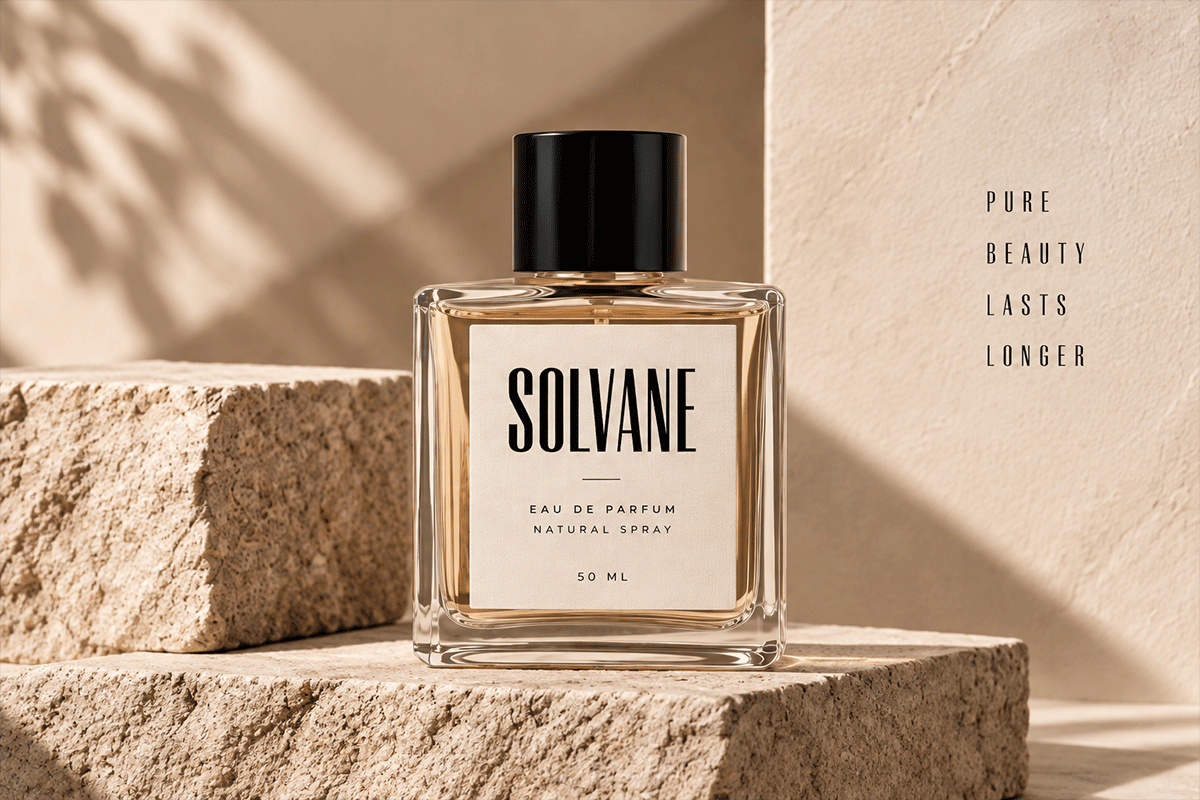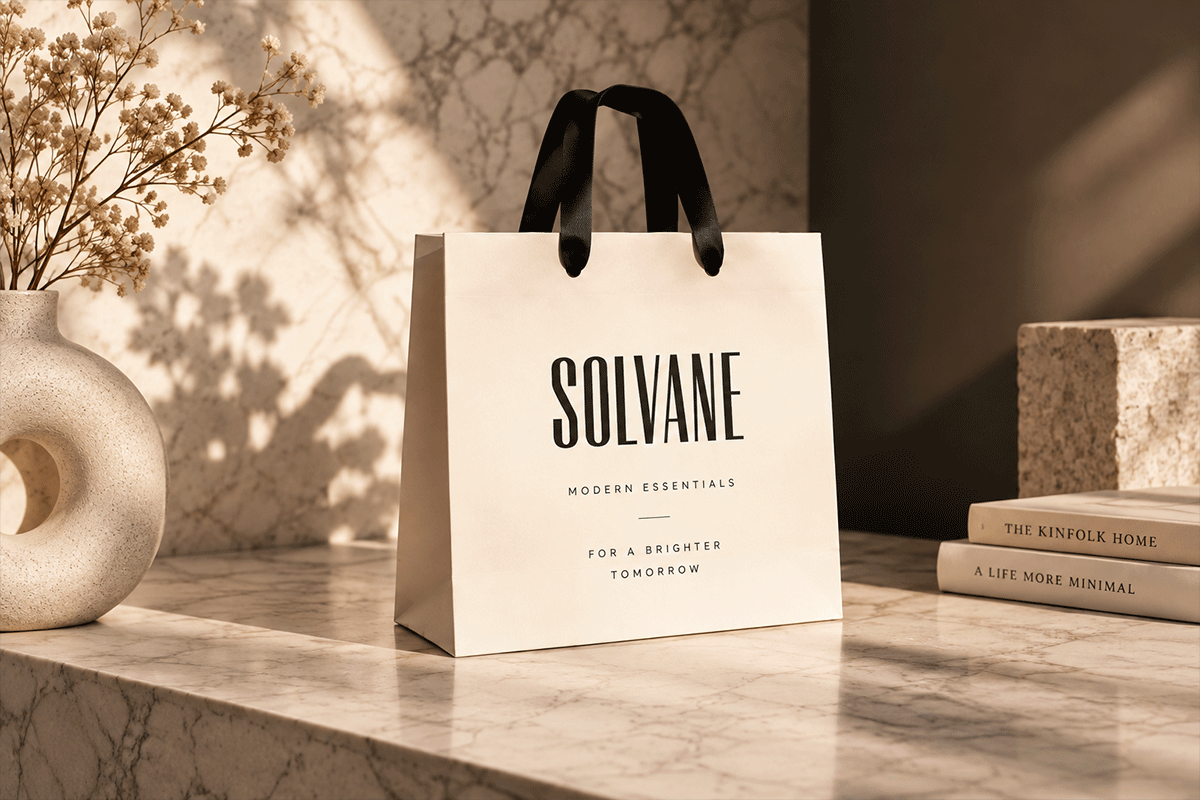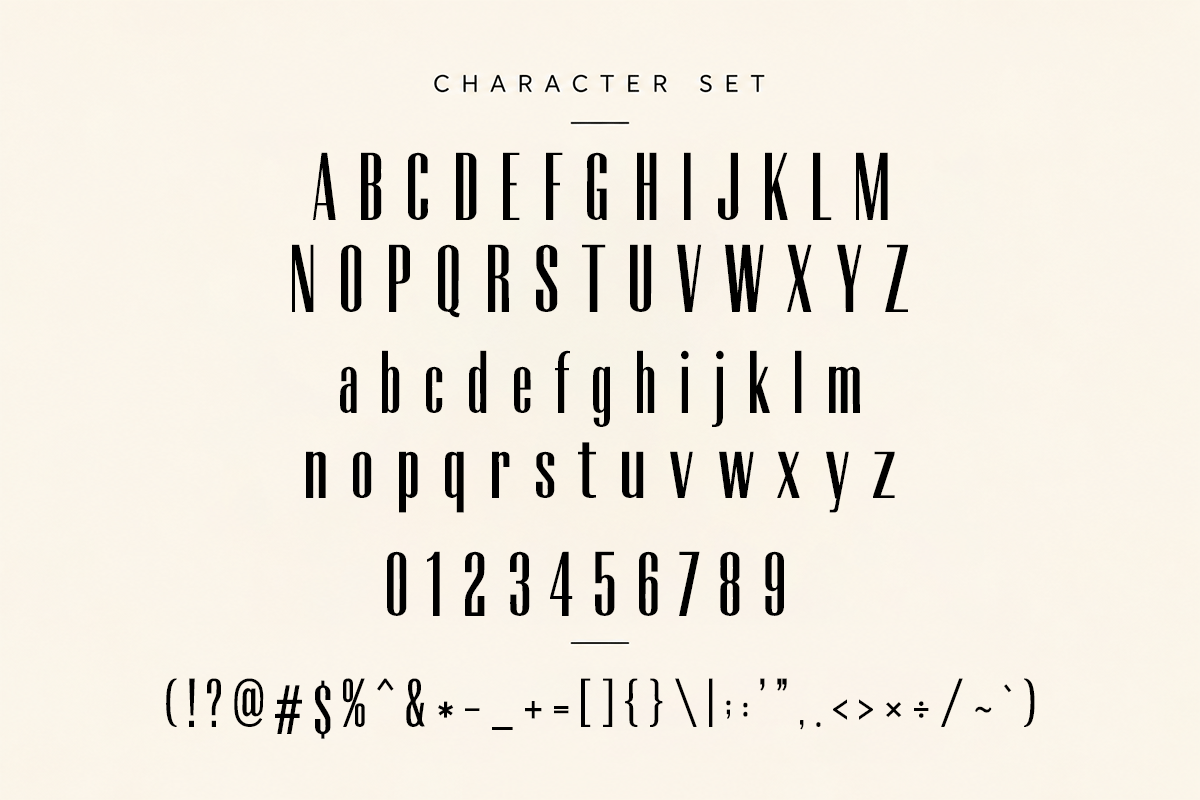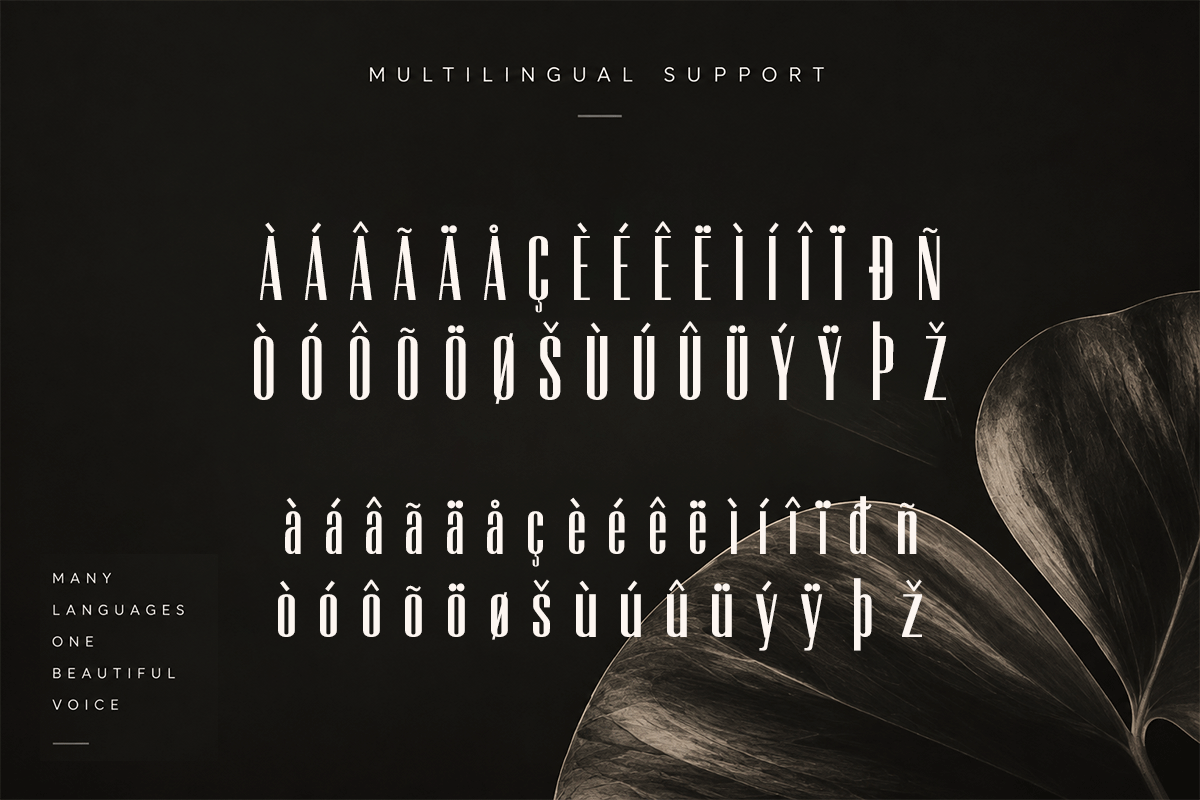
Solvane A Modern Sans Serif Font is a modern sans serif font built for creative work that needs a clean and versatile personality. The design combines balanced geometry, clear forms, and contemporary proportions, giving the typeface a clear visual identity without sacrificing practical readability for display use.
Solvane is especially effective for branding, logos, web design, editorials, packaging, presentations, social media, and advertising. It can carry the main visual voice in a logo or headline, while still feeling cohesive across supporting graphics, campaign assets, packaging, and branded content.
The typeface pairs the direction of a modern sans serif font with the character of a sans serif typeface. This makes it a strong option when you want typography that feels intentional, memorable, and closely matched to the project mood instead of using a generic display face.